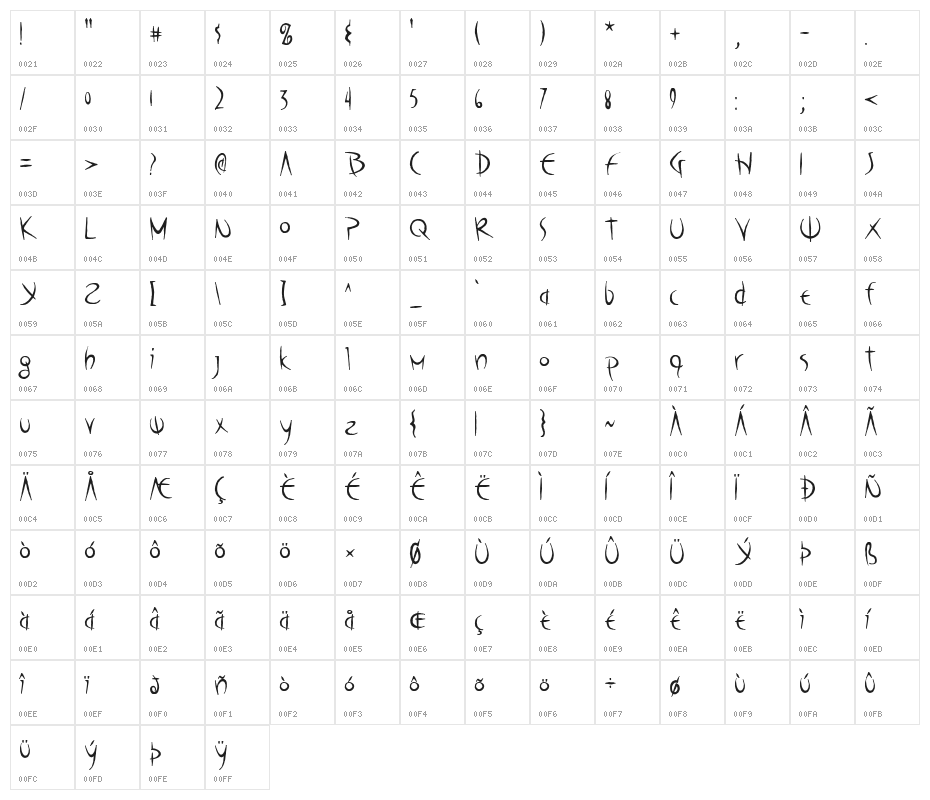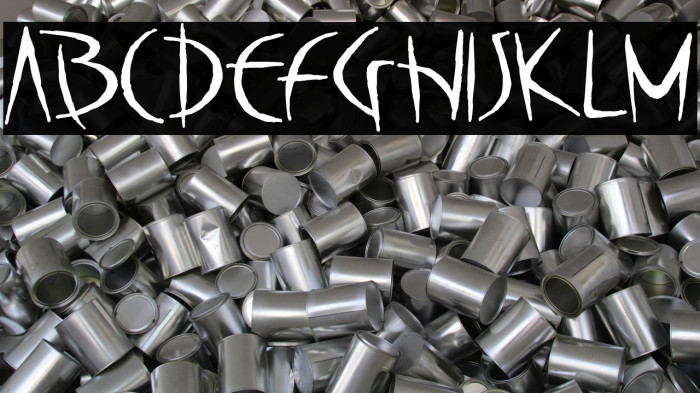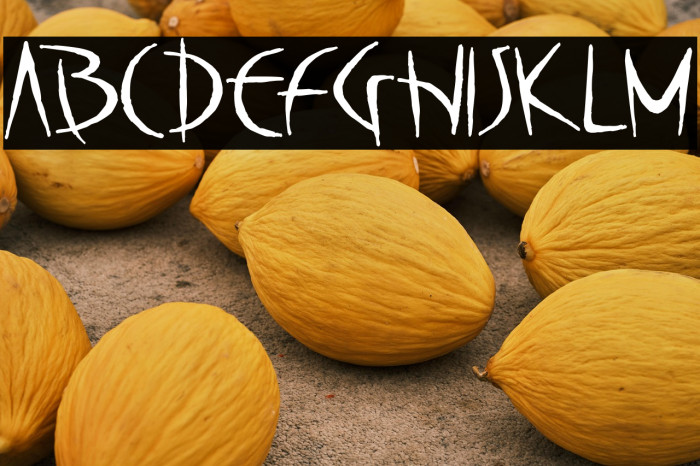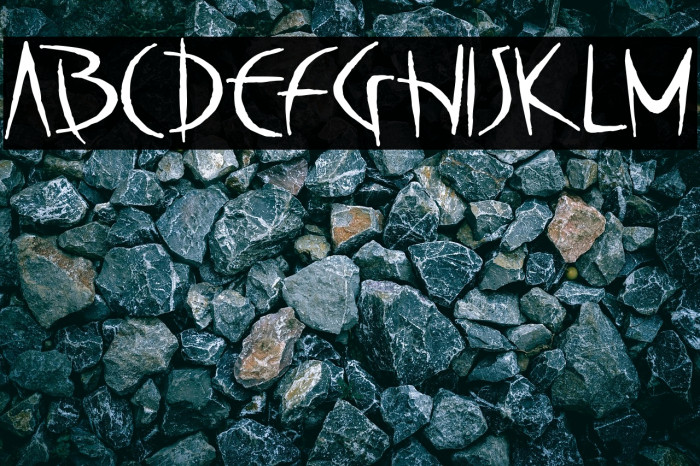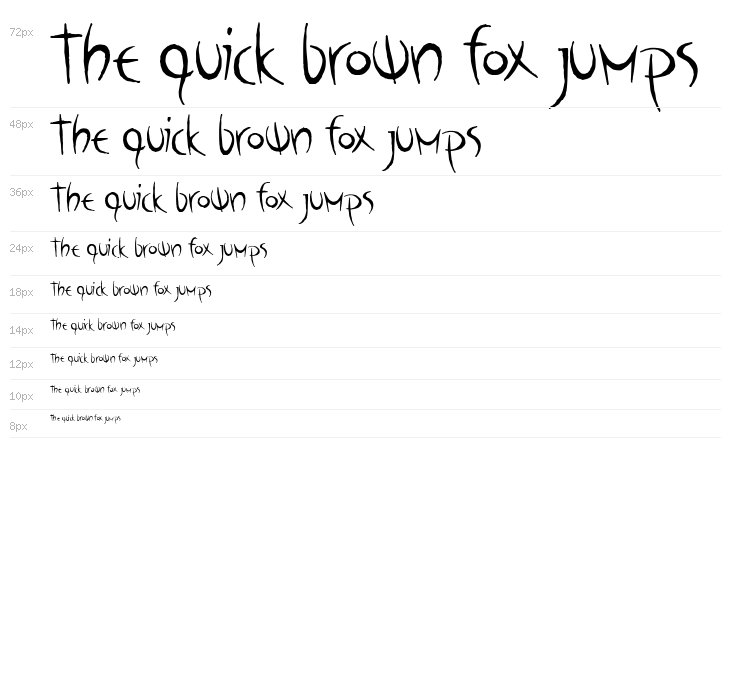
Poseidon AOE Font
Poseidon AOE Description
This font features a unique, hand-drawn style with an organic and slightly chaotic appearance. The letters have a whimsical, almost mythical quality, reminiscent of ancient scripts or calligraphy. The strokes are uneven, with varying thickness that adds to its dynamic and lively character. The uppercase letters are tall and narrow, while the lowercase letters maintain a consistent flow, enhancing readability despite their artistic flair. The numbers and special characters follow the same stylistic approach, ensuring a cohesive look across all glyphs.